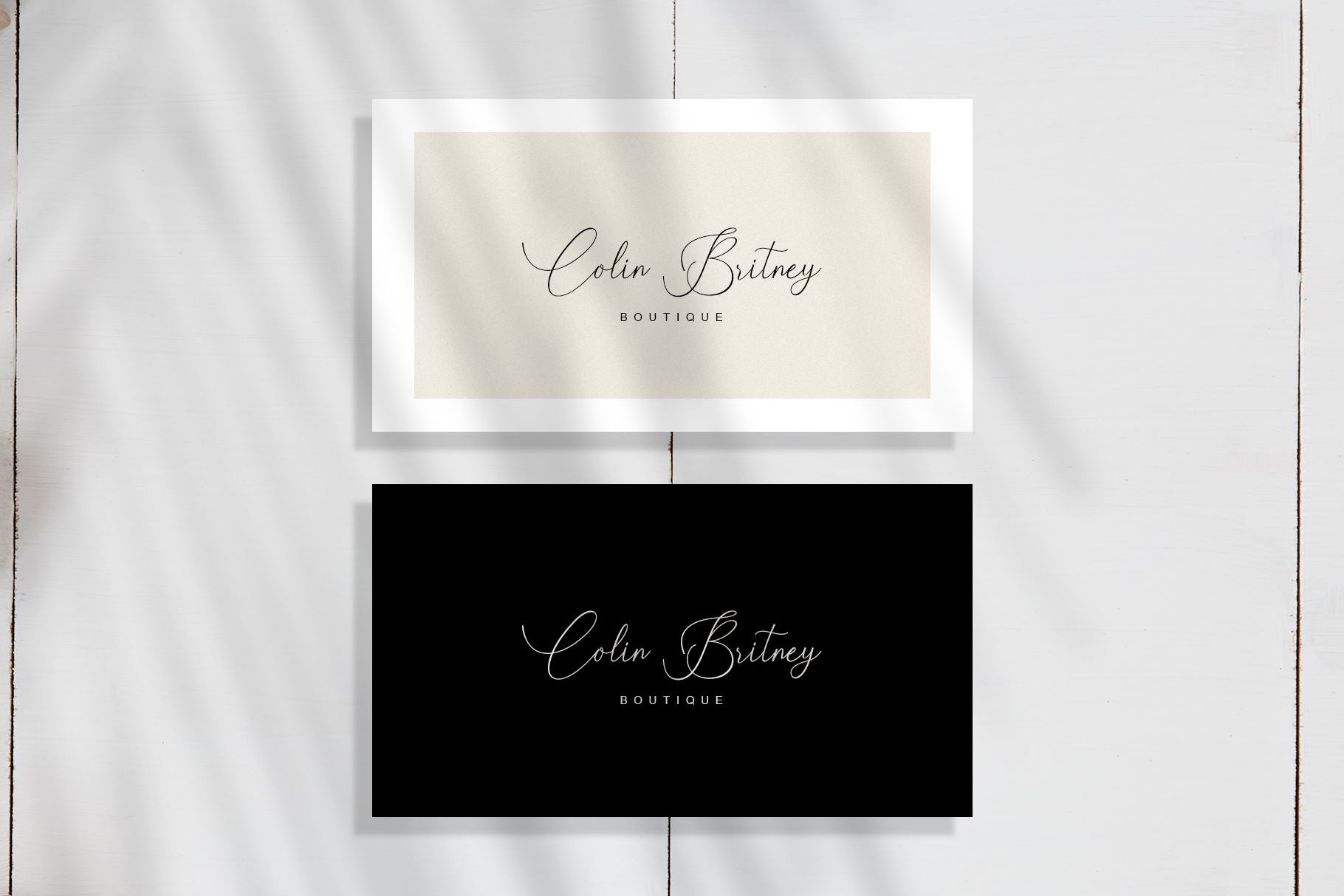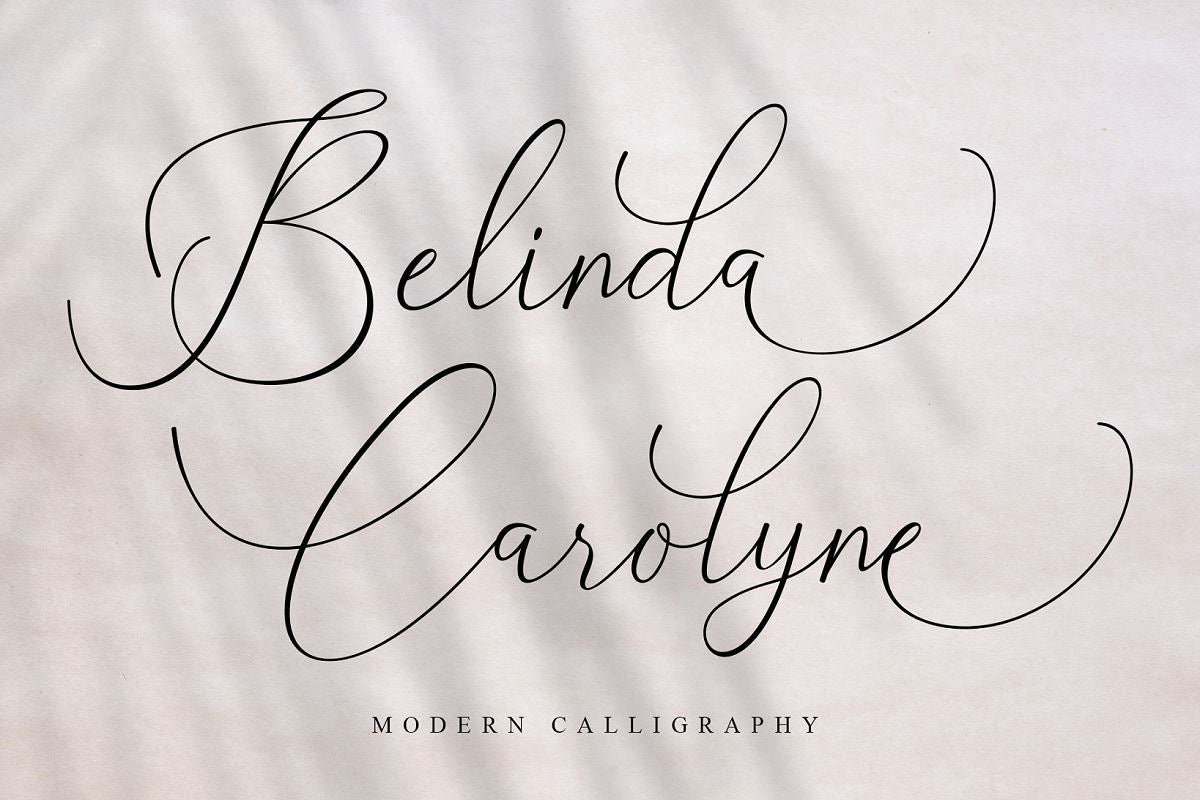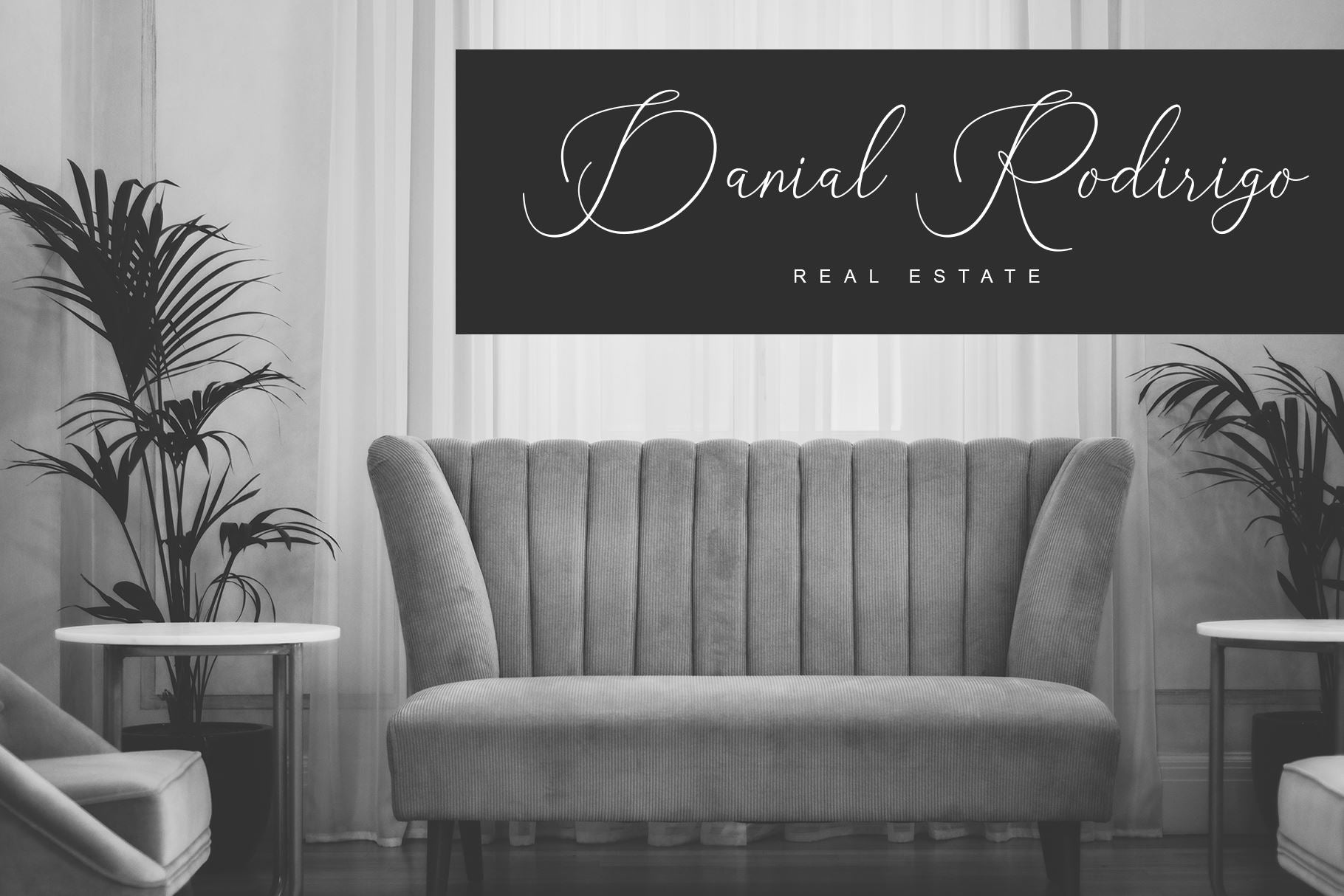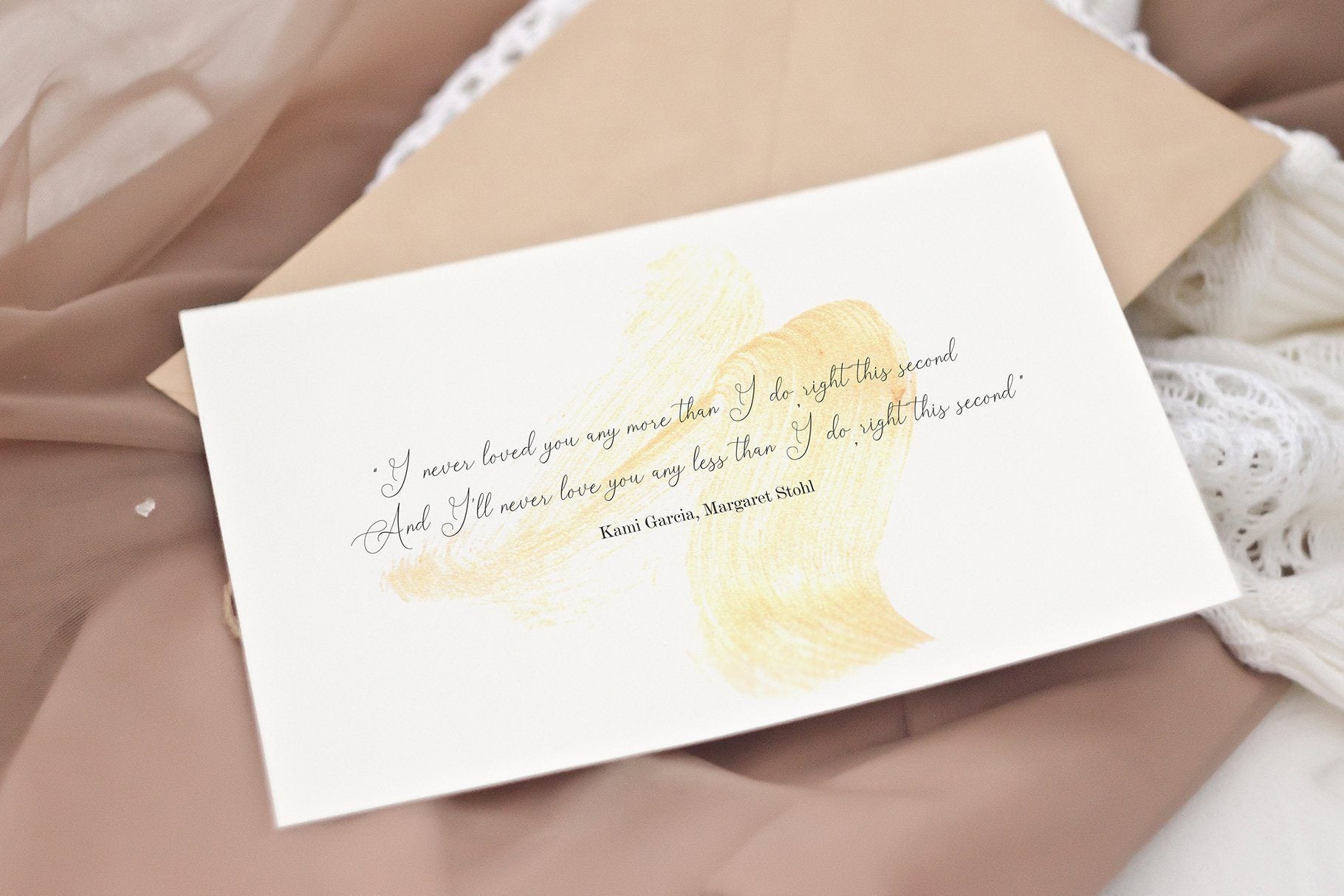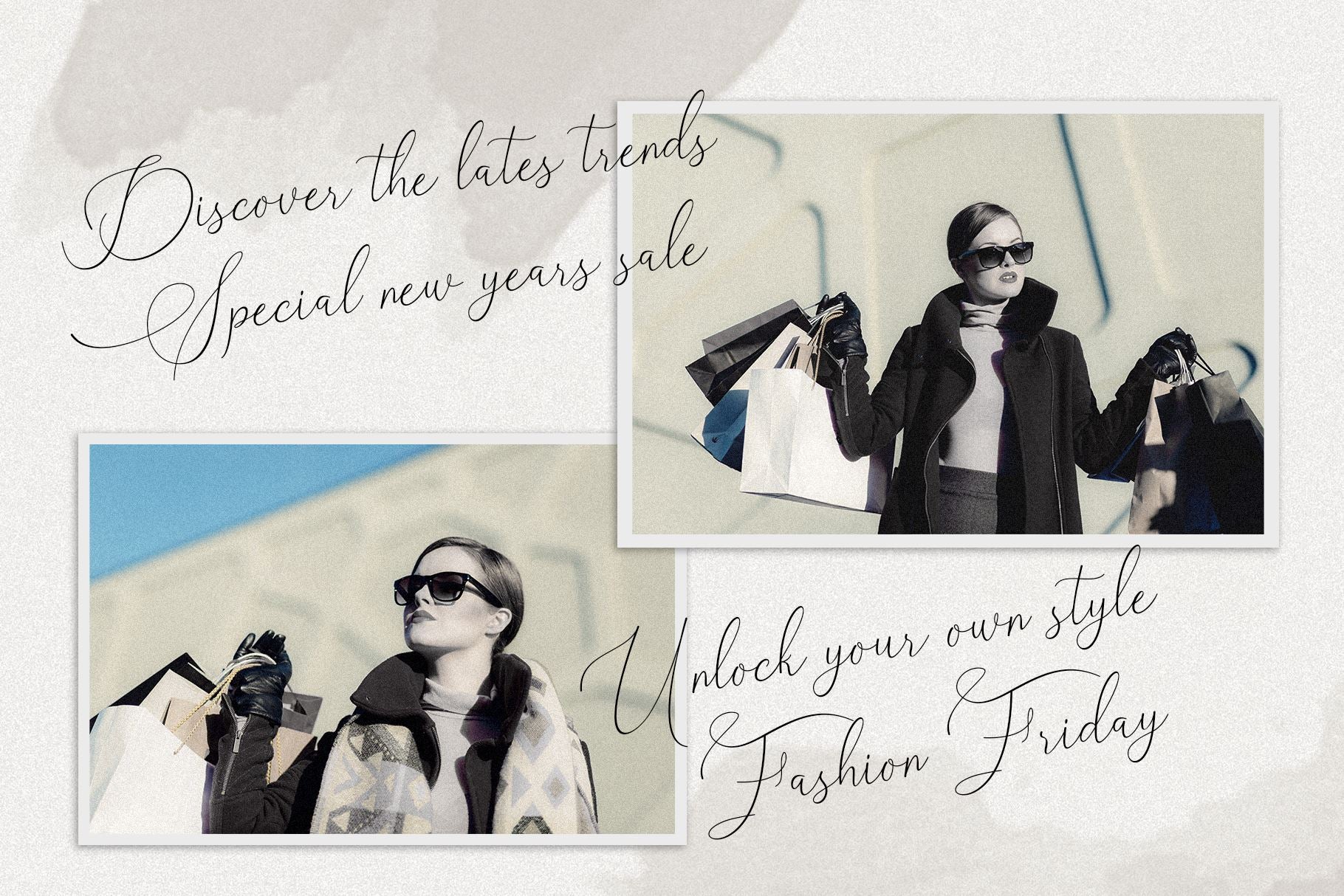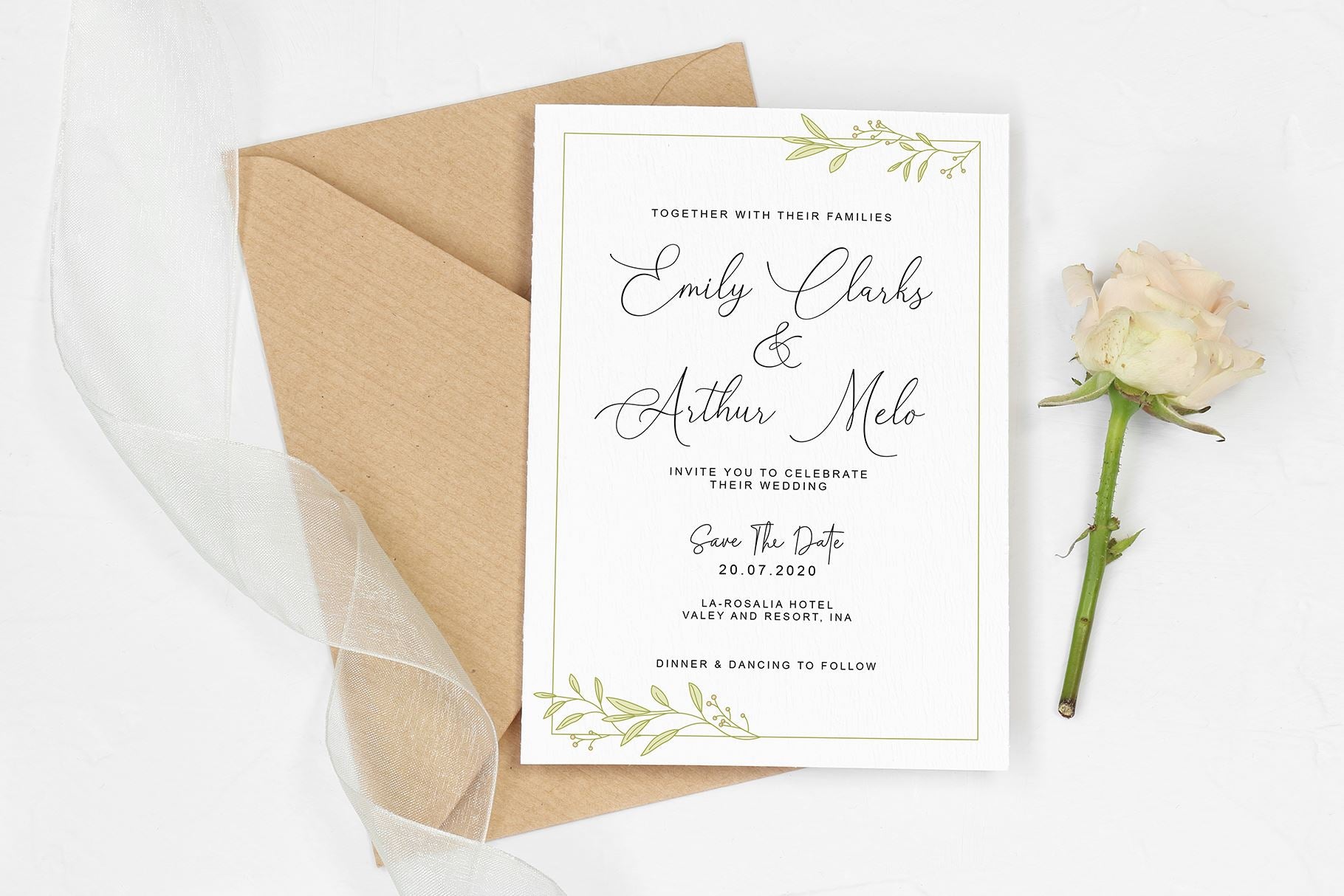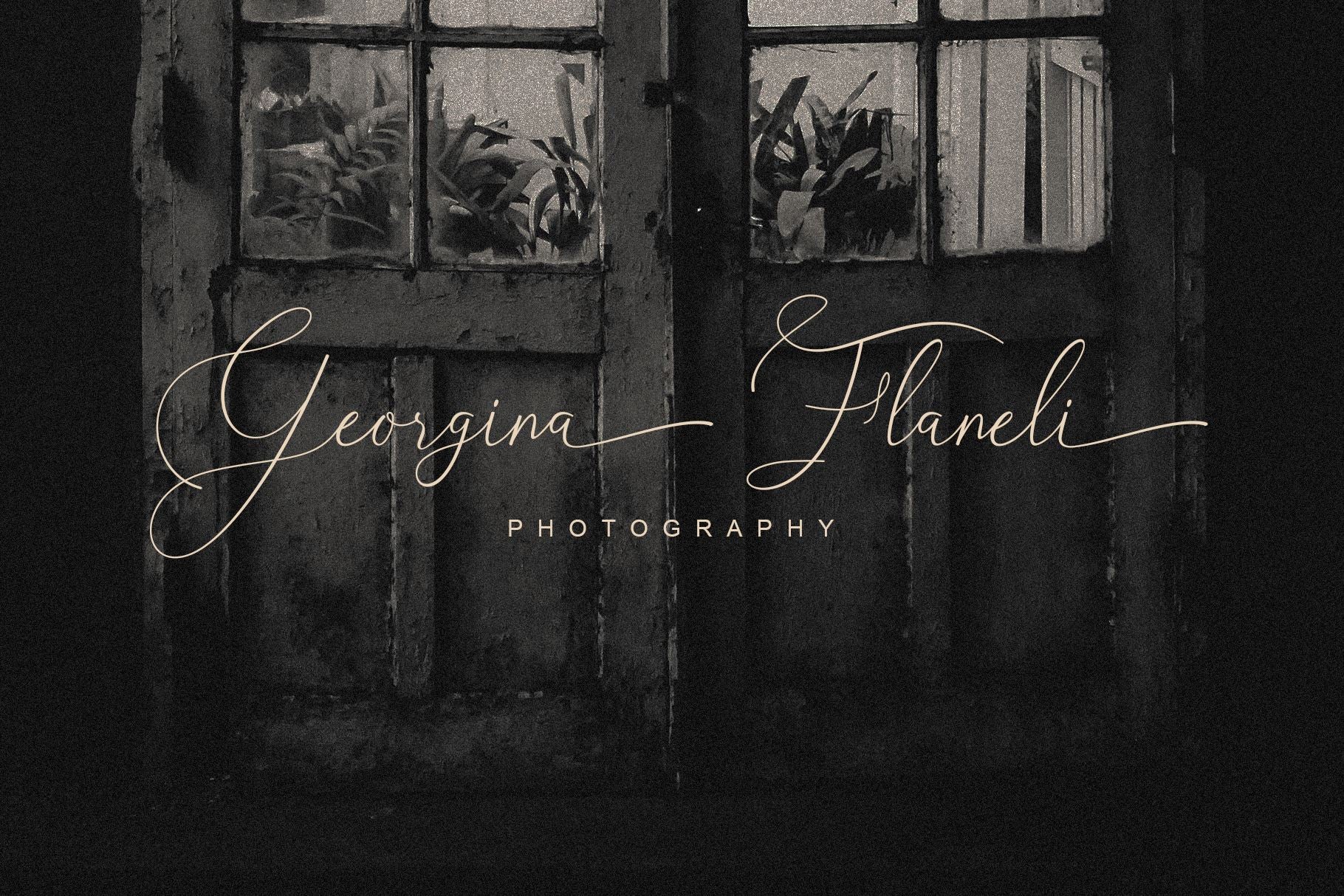
HomeScript FontsBelinda Carolyne Script Script Fonts Belinda Carolyne Script FacebookTwitterPinterestWhatsApp 1 of 7 ... ... ... ... ... ... ... About Belinda Carolyne Script Belinda Carolyne is a tasteful calligraphy font. It has beautiful swashes and ligatures that will add a romantic touch to any crafting project. DOWNLOAD NOW People also explored Onemore Font Lithonia Calligraphy Font Prole Readwish Font Waqper Font Ramphele Font Amazing Paradise Font Whitney Font Claw White Tiger Font 53 0 TagsBelinda Carolyne Script Previous articleHighlineNext articleButterfly Monoline Script Font LEAVE A REPLY Cancel reply Comment: Please enter your comment! Name:* Please enter your name here Email:* You have entered an incorrect email address! Please enter your email address here Website: Save my name, email, and website in this browser for the next time I comment. Personal Use Free Bitcrusher Condensed Bold Personal Use Free Read more about this font Cloudy Night Personal Use Free Read more about this font Penelope Brush Script Font Personal Use Free Read more about this font Spring Personal Use Free Read more about this font BLOG Transform Your Website: Elevate Your Typography with 7 Best Web Font Generators Are you ready to transform your website's typography from ordinary to extraordinary? Great! Today, we're diving into the world of web font generators, which... Elegant Wedding Invitation Fonts – Handwritten & Script Fonts Best Fonts for YouTube Videos: Make Your Thumbnails Stand Out The 10 Best Handwriting Fonts to Add Personality to Your Designs